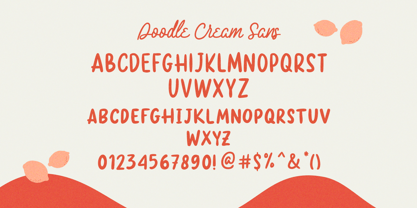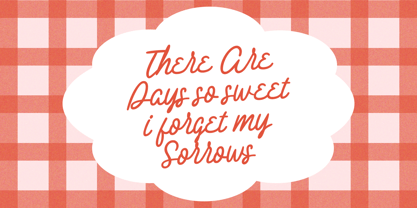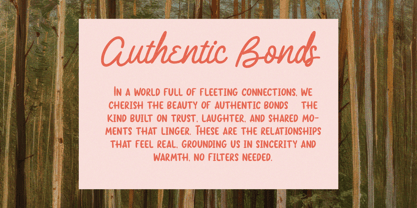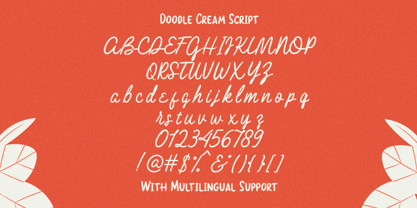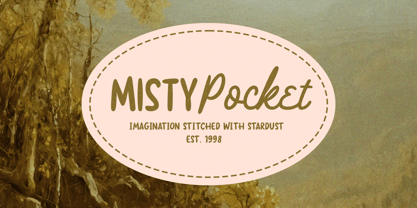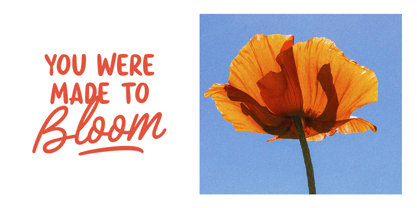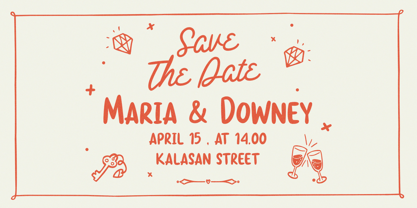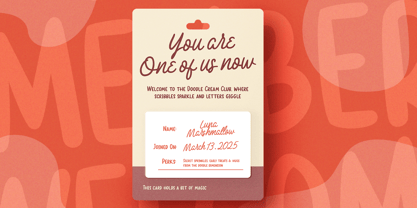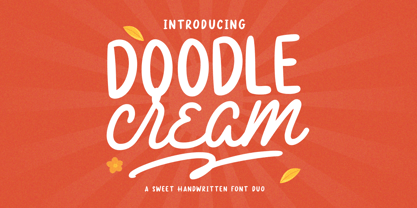
Doodle Cream
by Letterhend
The Doodle Cream Font Family was designed by Hendry Juanda and published by Letterhend. Doodle Cream contains 2 styles and family package options. More about this family
Doodle Cream is a sweet handwritten font duo featuring a playful sans and a smooth script style. This charming typeface brings a fun, friendly, and cheerful vibe, making it perfect for kids-themed designs, sweets and bakery branding, or any creative project that aims to be lighthearted and inviting. With its soft strokes and whimsical doodle touch, Doodle Cream adds a warm and joyful personality to your visuals.
Features :
• Uppercase & lowercase
• Numbers and punctuation
• Alternates Character
• Multilingual support
Designers: Hendry Juanda
Foundry: Letterhend